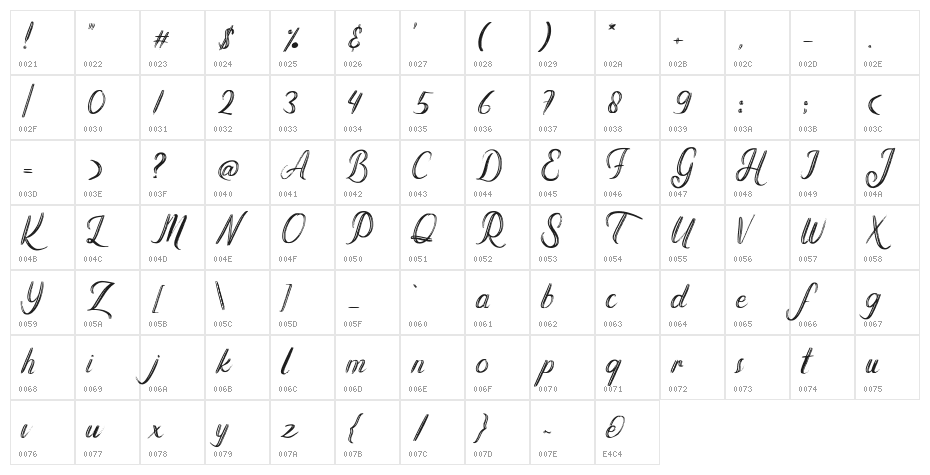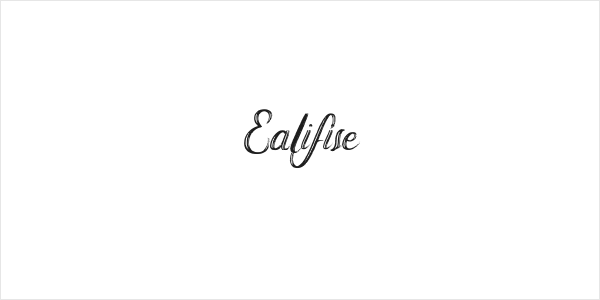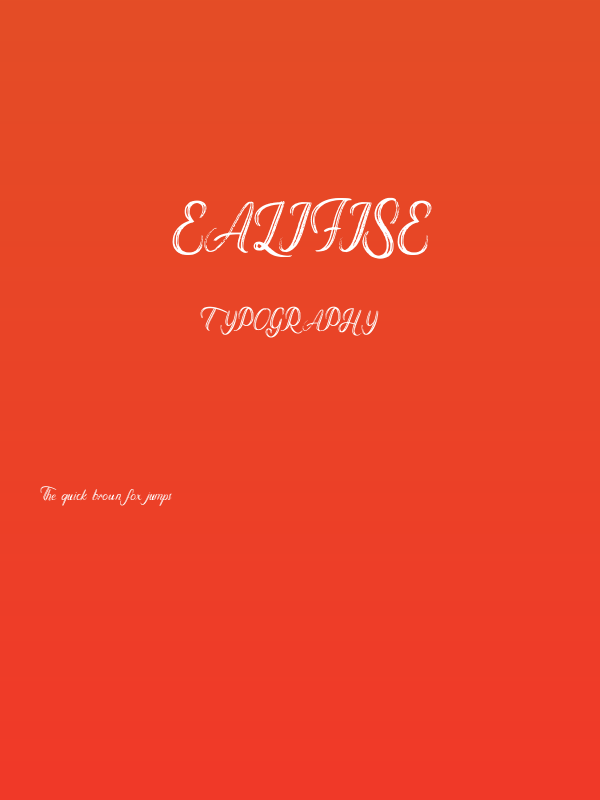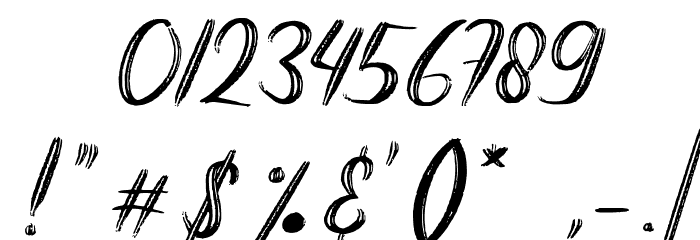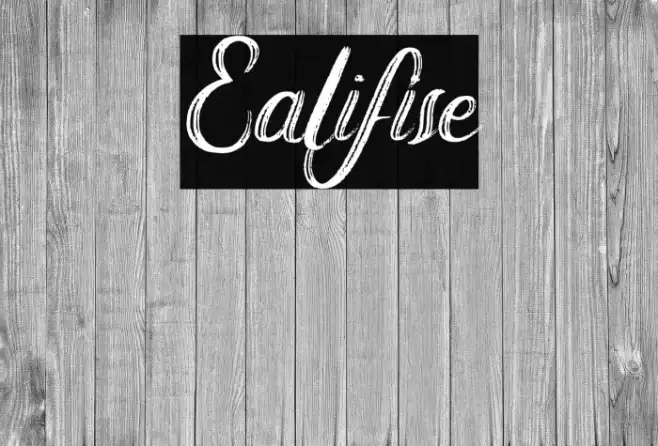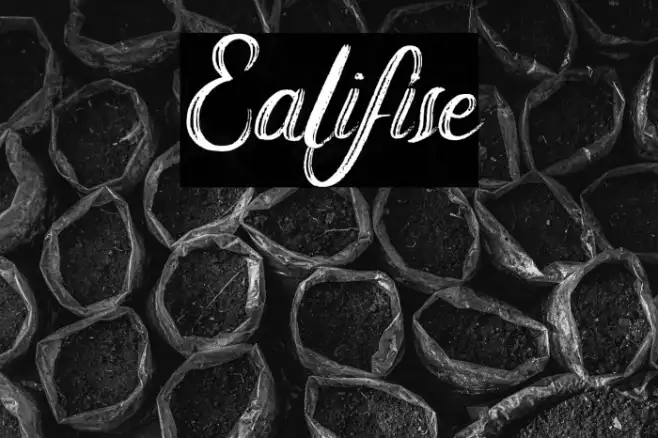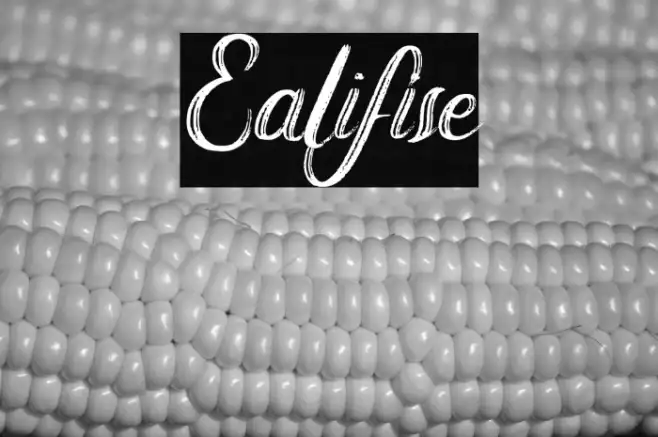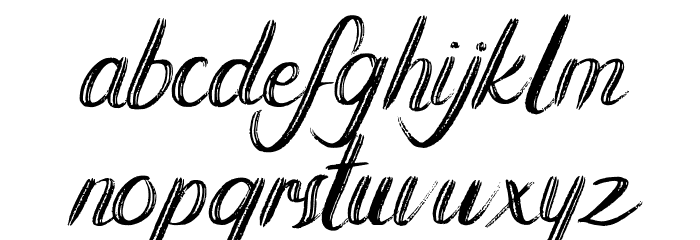
Ealifise Font
Ealifise Description
This font exudes a dynamic and expressive style, characterized by its flowing, cursive script that mimics the fluidity of handwriting. The letters are elegantly connected, with each character displaying a distinct flair and artistic touch. The strokes vary in thickness, adding a sense of movement and rhythm to the text. The uppercase letters are bold and prominent, while the lowercase letters maintain a graceful continuity. Numbers and special characters are designed to complement the overall aesthetic, ensuring a cohesive look. This font is ideal for projects that require a personal and artistic touch, such as invitations, greeting cards, and creative branding.
| Proposed Projects | Ideal for invitations, greeting cards, artistic branding, and creative projects. |